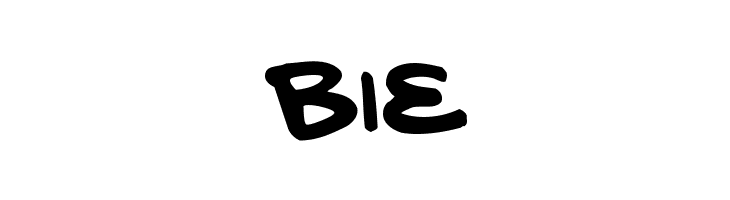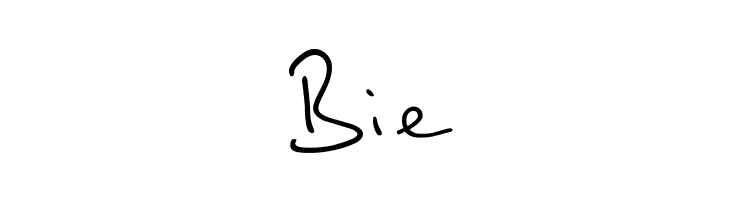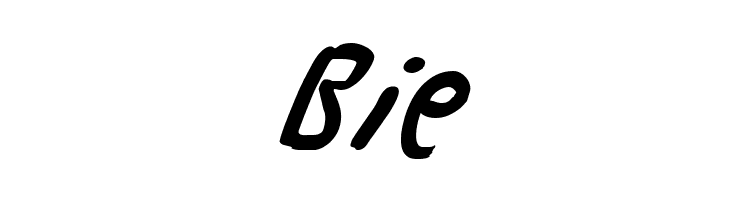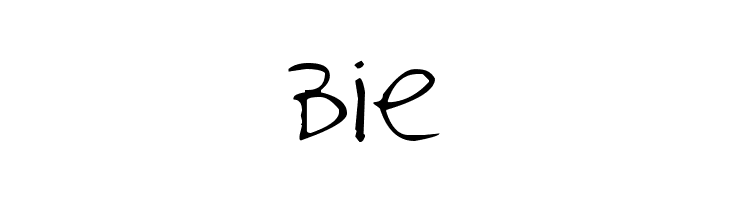
A playful, marker-style font with bold, rounded characters and a casual vibe.
A playful, casual handwritten font with a bold, friendly appearance.
A bold, italic handwritten font with a playful and dynamic style.
A lively, handwritten font with fluid strokes and a personal touch.
A graceful script font with fluid, connected strokes and elegant curves.